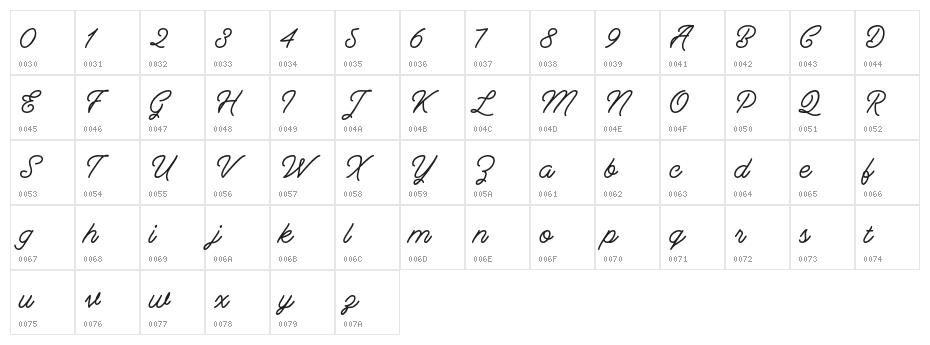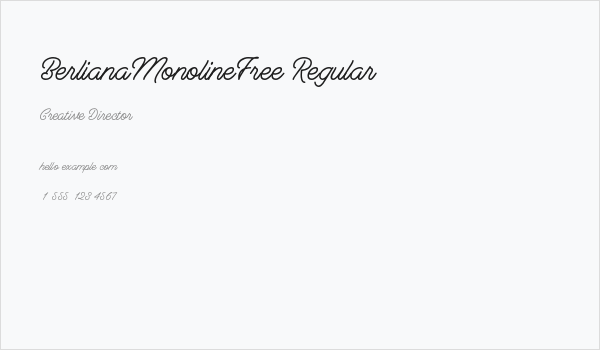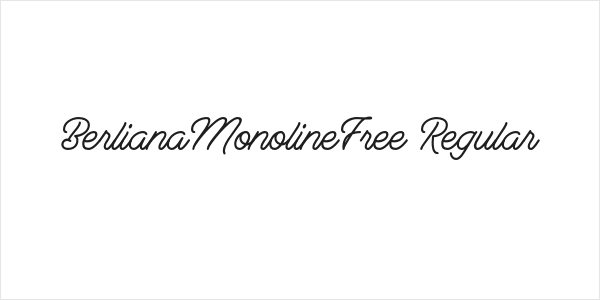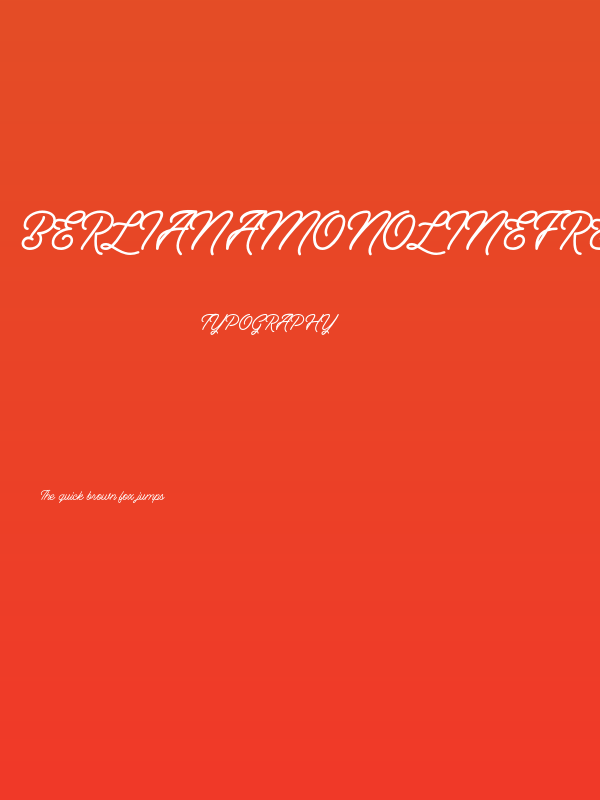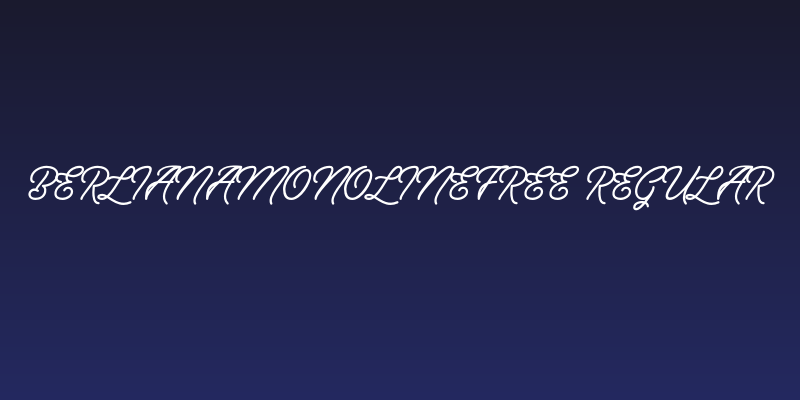
BerlianaMonolineFree-Regular Font
BerlianaMonolineFree-Regular Description
This font features a flowing, cursive style that mimics elegant handwriting. The characters are connected in a smooth, continuous line, giving it a monoline appearance. The strokes are consistent in width, creating a harmonious and balanced look. The uppercase letters are slightly more ornate, with flourishes that add a touch of sophistication. The lowercase letters maintain a simple yet graceful form, making the font versatile for various uses. The numerals are clear and legible, matching the overall aesthetic. This font is ideal for projects that require a personal, handwritten touch.
| Use Case | Logos, Invitations, Personal stationery |
| Proposed Projects | Ideal for wedding invitations, greeting cards, branding, and personal stationery. |